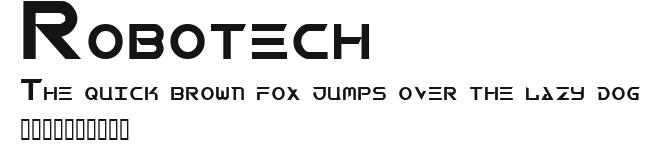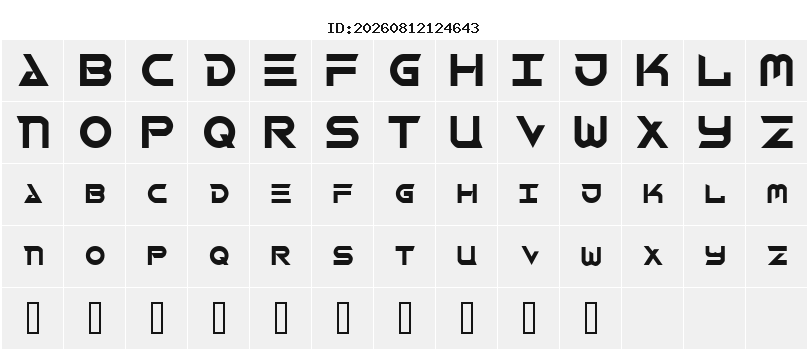
Robotech Preview
• Font Name: Robotech
• Full Font Name: Robotech
• Character Count: 68
About Robotech.ttf
Robotech.ttf is a modern, elegant sans-serif font designed for ultimate readability and visual harmony. Perfect for branding, headlines, web design, and print materials.